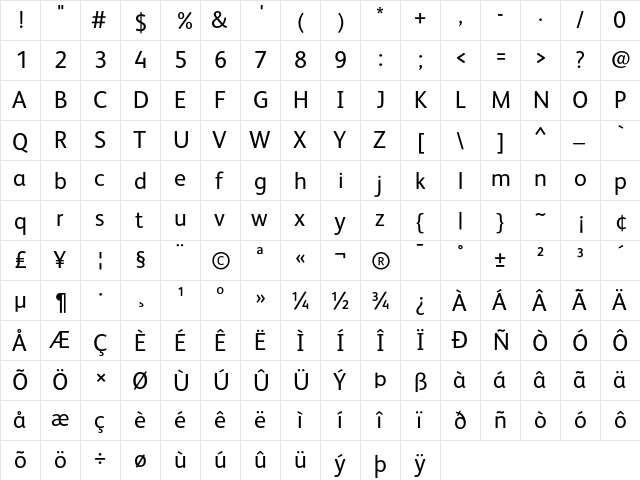
FSAlbert Regular
Design Context for FSAlbert Typeface
FSAlbert offers clean, dependable letterforms without strong stylistic allegiance, making it a practical choice for designers who need flexibility.
Pro Tip: Pair FSAlbert with a font of contrasting weight or personality to build a more expressive typographic hierarchy.